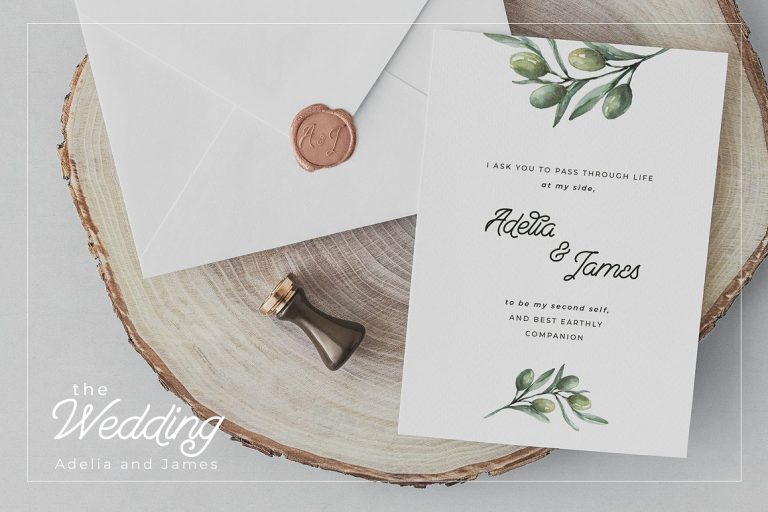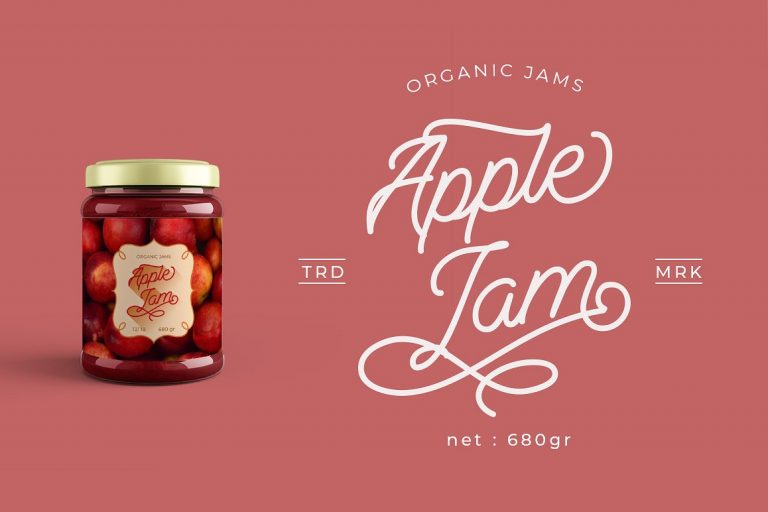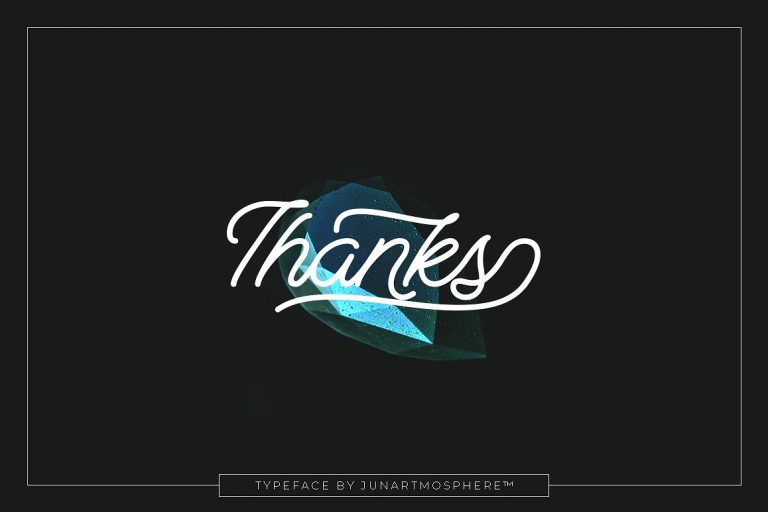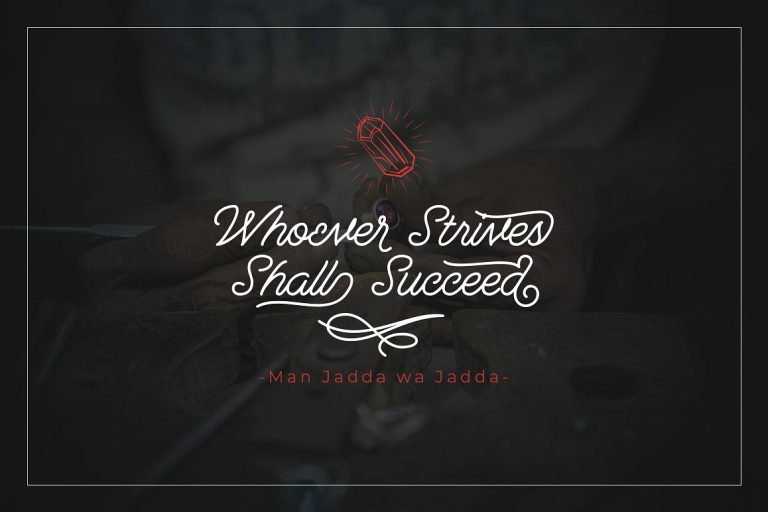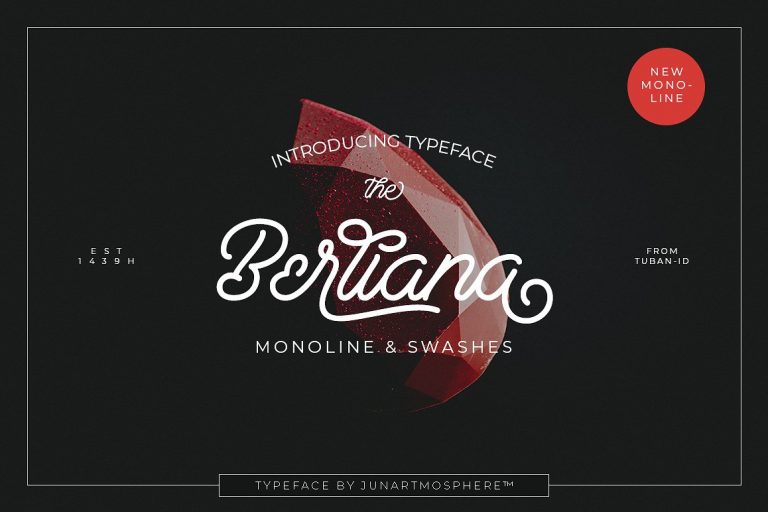
Berliana Monoline Script Font
Continued is a handwriting style font, designed and shared by junartmosphere. Introducing Berliana. Berliana Monoline is typeface was inspired by handwriting using markers. While the name is a word other than Diamonds, namely jewelry worn by many women in the world. Diamond jewelry is so expensive and full of luxury. As regards with diamonds, this font was created to present the luxury of a very beautiful diamonds. This font is suitable for wedding invitations, design, logo or branding, or as the font for the typhography.